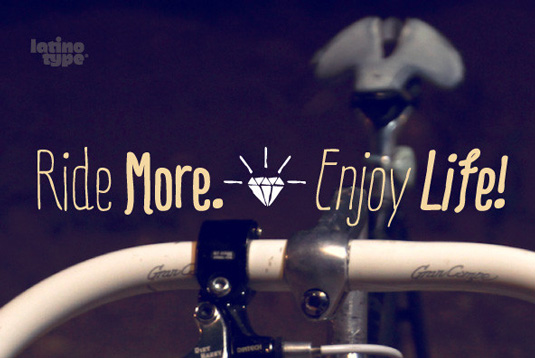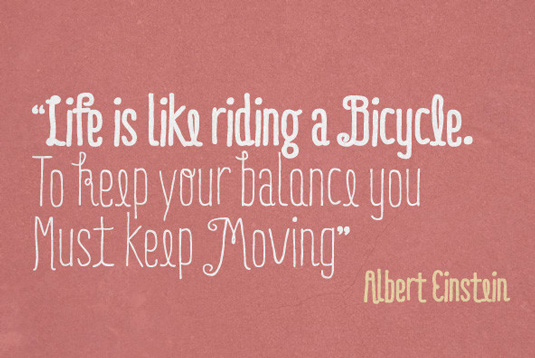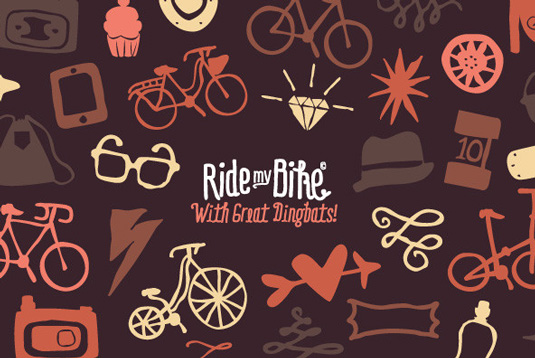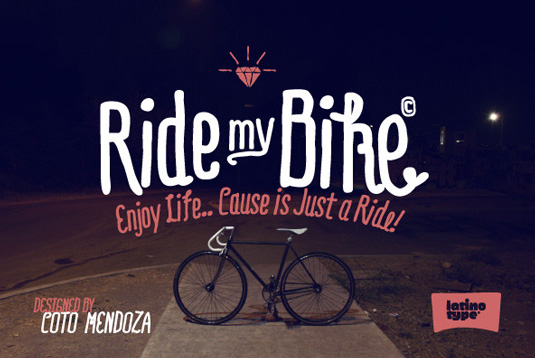
Font of the day: Ride my Bike
Every day we showcase the best fonts on the web. Today it's Ride my Bike by Guisela Mendoza.
Ride my Bike by Guisela Mendoza
This fresh, handmade typeface Ride my Bike was designed by Guisela Mendoza. Offered via digital type foundry LatinoType, the design is described as being 'inspired by street style and the new culture that moves pedaling around the city. Perfect for use in headlines, brands and fashion photography'. The design contains more than 600 glyphs as well as 91 dingbats.